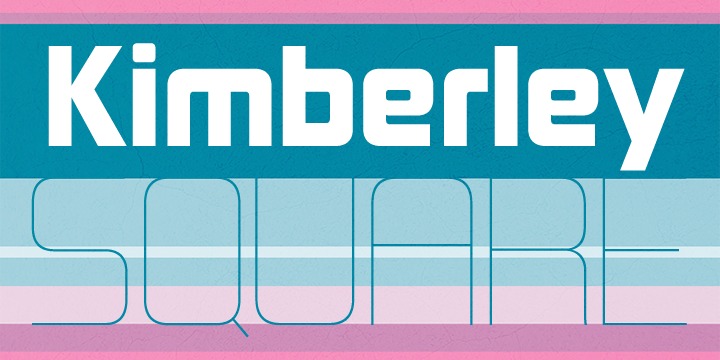
Kimberley was inspired by several 1970s corporate/industrial logotypes. The original open 4 and knock-kneed W are available in OpenType savvy applications using the stylistic alternates feature.